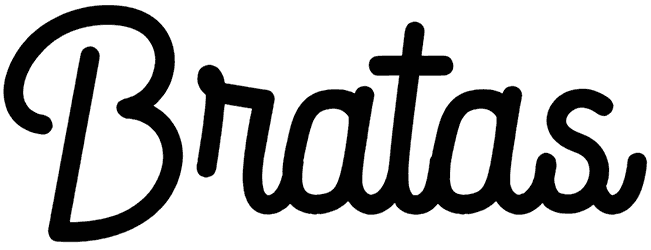
Bratas Font
Bratas is a glamorous script font that comes with rounded and stretched edges. This font can broaden your selection range by offering two distinctive styles. It can be your faithful assistant in critical projects such as social media posts, book covers, illustrations, and the user interface of applications.
This masterpiece has the real ability to boost the visibility of your work by adding a sense of dreaminess, fantasy, childishness, or comfort to it.
This Font is a very neat monoline typeface. Inspired by retro posters from the 80s, old-school neon lights, and modern vintage designs.
Bratas is a versatile font that you can use for any style like funky, retro, techno, modern, minimalistic and more! Equipped with a straight swash to give it a more elegant look and many alternative characters that allow you to create brilliant typographic combinations.